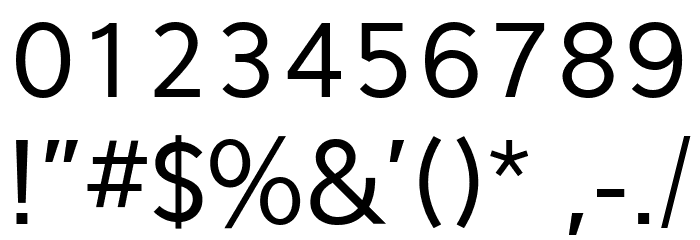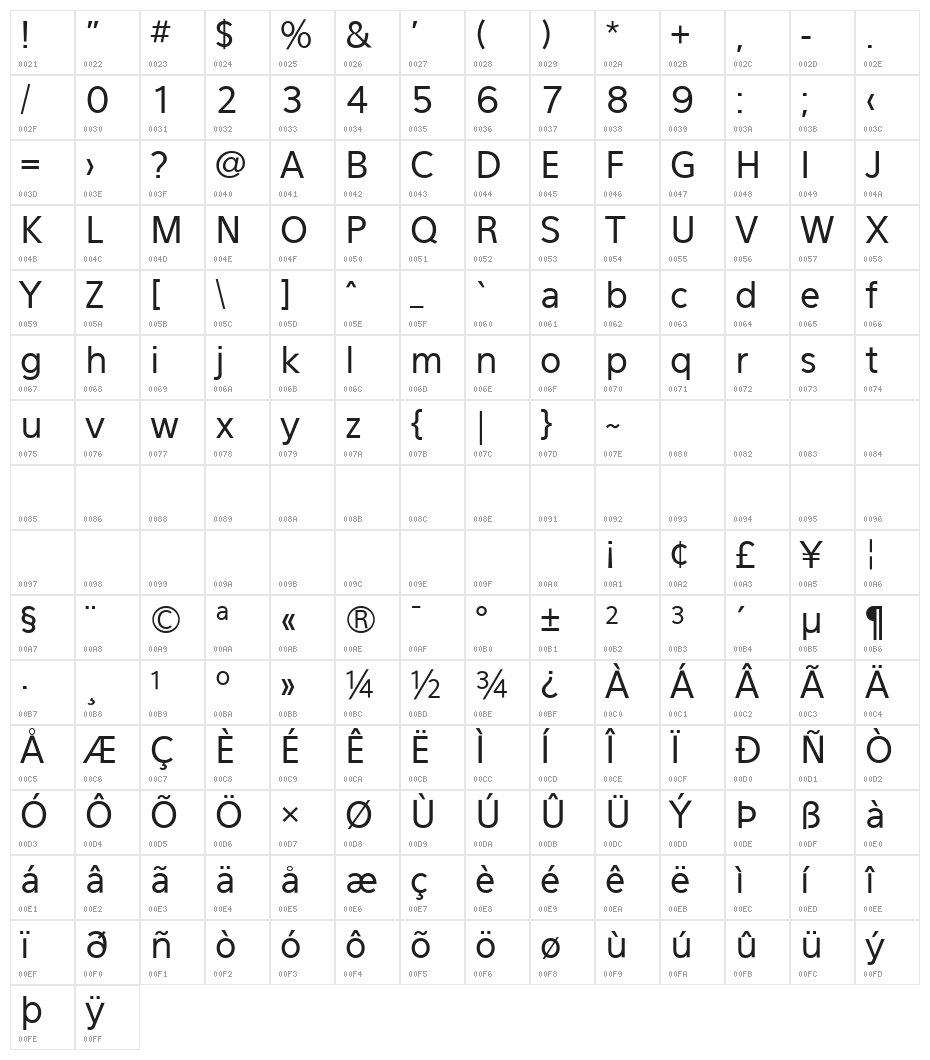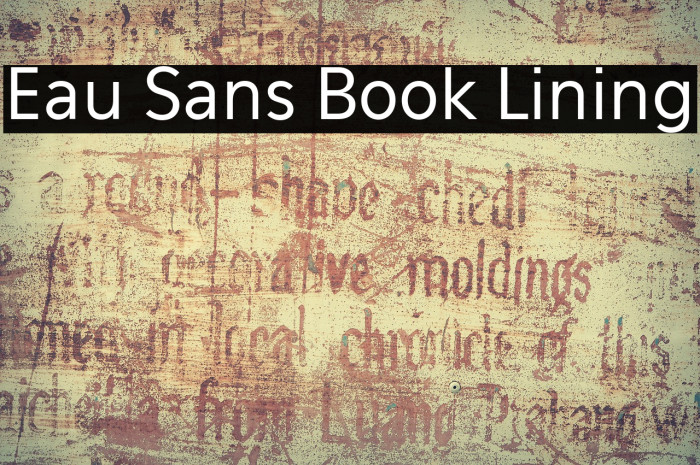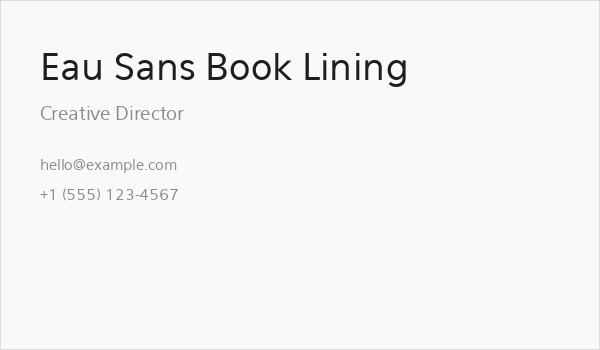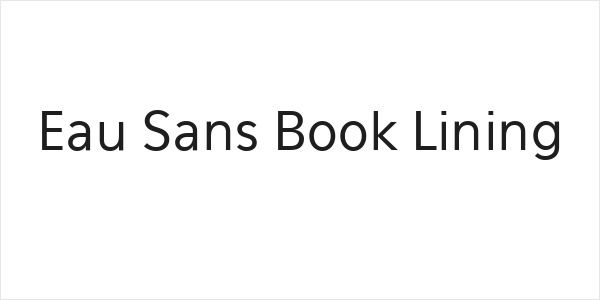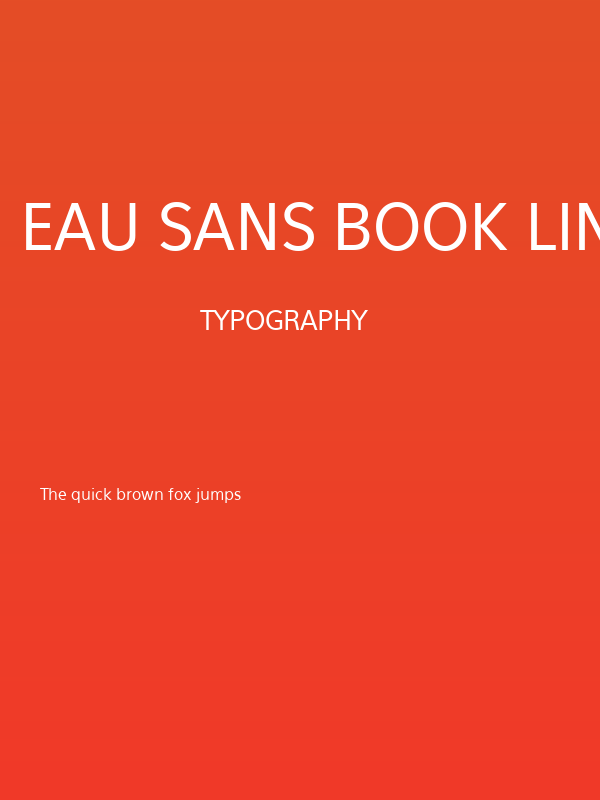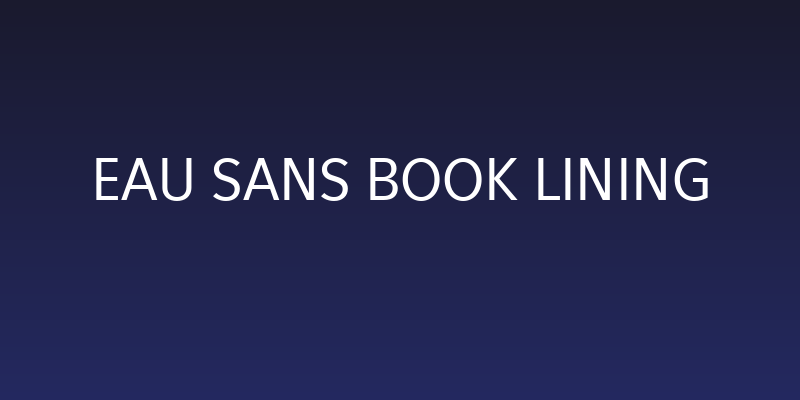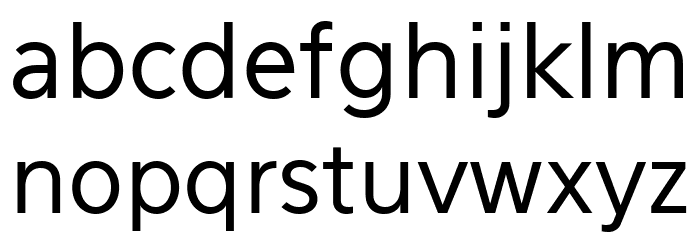
Eau Sans Book Lining Font
Eau Sans Book Lining Description
This font features a clean and modern sans-serif design, characterized by its simplicity and readability. The characters are evenly spaced, with a consistent stroke width that gives it a balanced and harmonious appearance. The uppercase letters are bold and assertive, while the lowercase letters maintain a friendly and approachable feel. The numerals are clear and distinct, making them easy to read at various sizes. Special characters are well-integrated, maintaining the overall aesthetic of the font. Its versatility makes it suitable for a wide range of applications, from digital interfaces to print media.